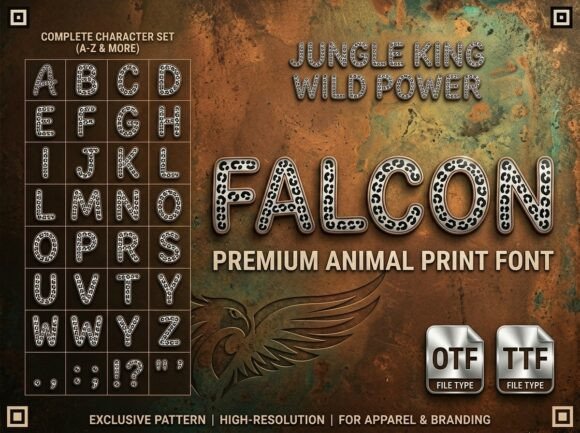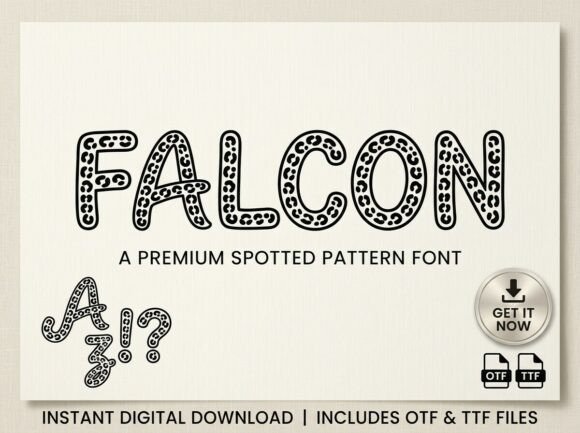
Introduction to Falcon Font
This font is a stunning decorative display font designed to be the center of attention.
Featuring unique This font is a stunning decorative display font designed to be the center of attention Featuring unique artistic elements and a strong visual personality, this font is perfect for creators who want to break away from the ordinary.
Key Features of Falcon Font
Why Choose Falcon Font?
Falcon Font offers exceptional quality and versatility, making it a valuable addition to your design toolkit. Whether you’re creating for personal projects or commercial use, Falcon Font delivers professional results.